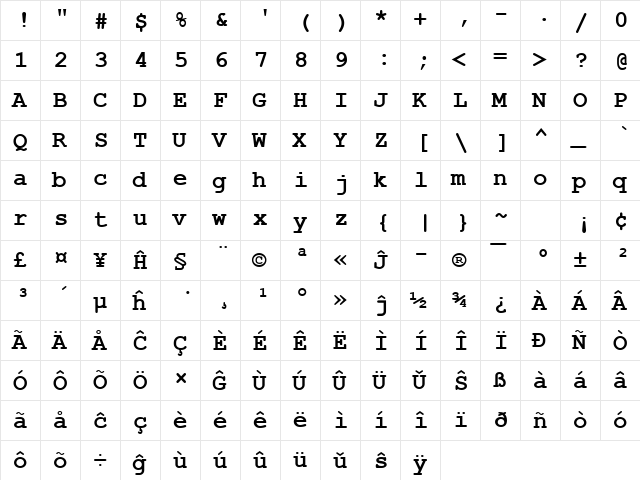
Courier New Eo Bold
Design Context for Courier New Eo Typeface
Courier New Eo brings the precise, column-aligned rhythm of monospaced typography to designs that value technical clarity and systematic order. Its bold stroke weight gives it real presence on the page.
Well-suited to data-driven dashboards, coding tutorials, and any design that wants to reference the world of programming.
Pro Tip: Use Courier New Eo with slightly increased line-height for extended reading — fixed-width spacing can feel dense in longer passages without extra breathing room.